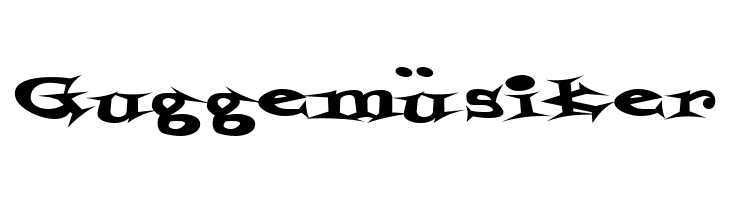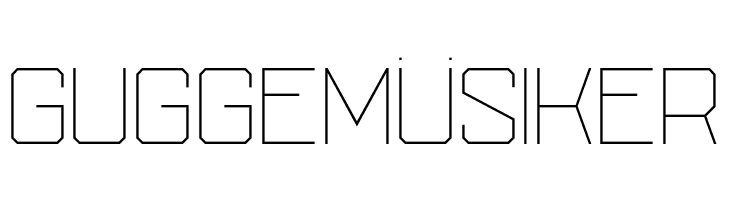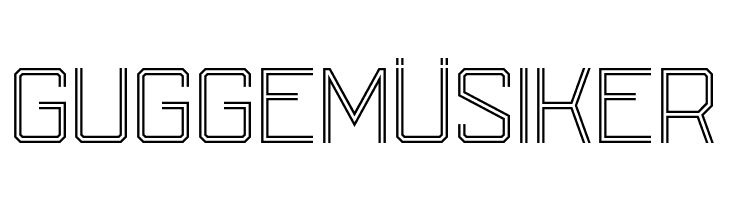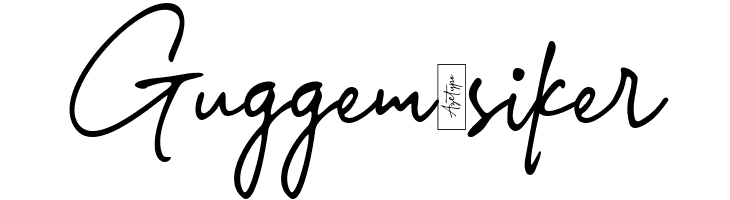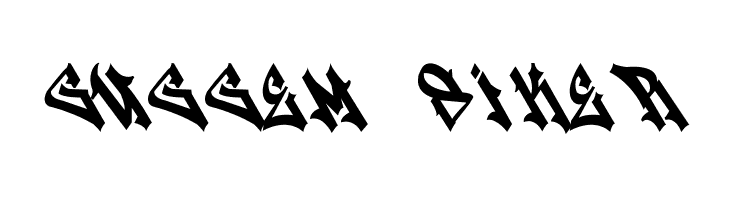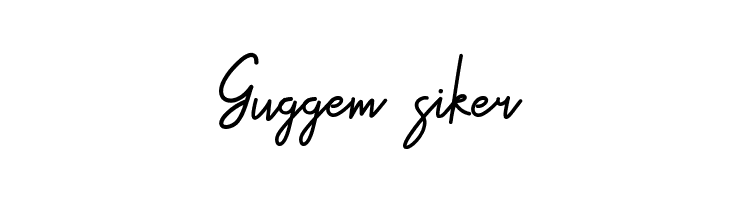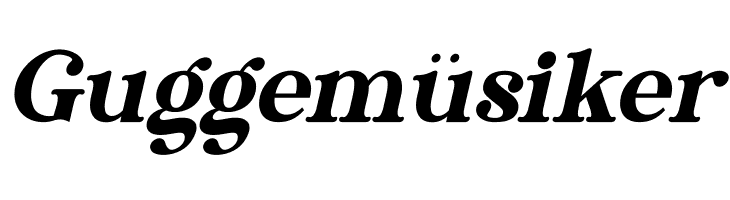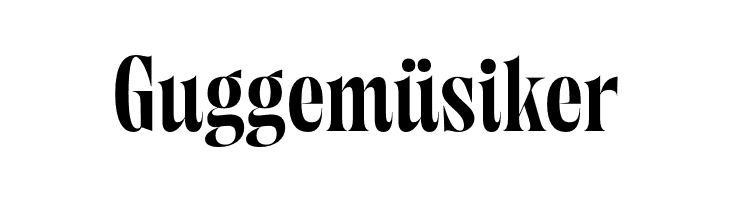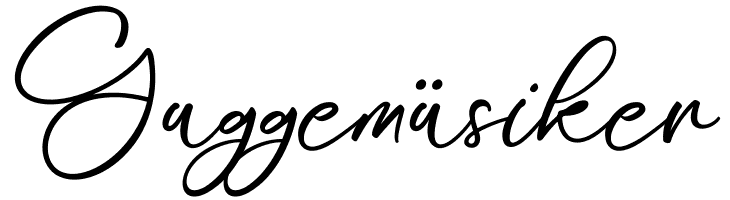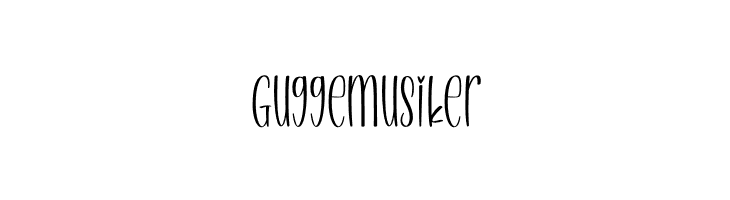
A bold, graffiti-inspired font with sharp, angular lines and an urban aesthetic.
A bold, high-contrast serif font with sharp serifs and dramatic style.
Playful handwritten decorative font.
A classic italic serif font with elegant, flowing lines and moderate contrast.
An elegant calligraphy font with flowing cursive letters and decorative swashes.
A stylish and classy script font with elegant, fluid strokes.
Thin, elegant handwritten script with a casual, flowing style.
A playful, rounded font with smooth curves and consistent stroke width.
Elegant cursive script with a handwritten style.
A bold, modern font with clean lines and rounded edges, perfect for impactful designs.
A dynamic, calligraphic font with sharp, angular strokes and fluid elements.
A modern, rounded font with a geometric and futuristic style.
A bold, rounded font with a modern and playful style.
A modern, geometric font with thin lines and high legibility.
A sleek, modern font with thin, elongated letterforms and consistent stroke width.
A lively handwritten font with fluid, dynamic strokes and a casual, creative style.
A bold, edgy font with sharp, angular elements and a rebellious feel.
A bold, connected script font with a modern and dynamic style.
A geometric, angular font with a modern and technical appearance.
A geometric, technical font with a modern, futuristic aesthetic.